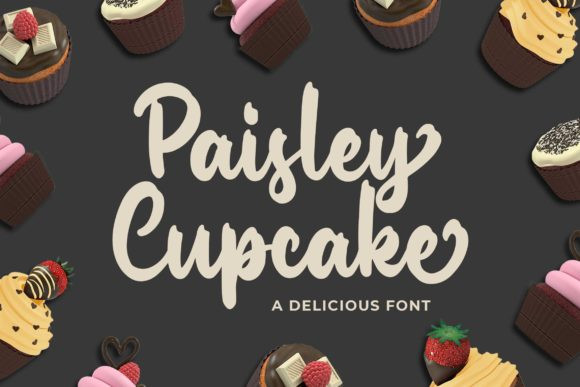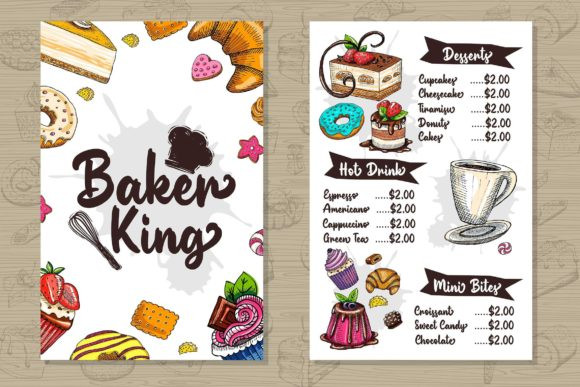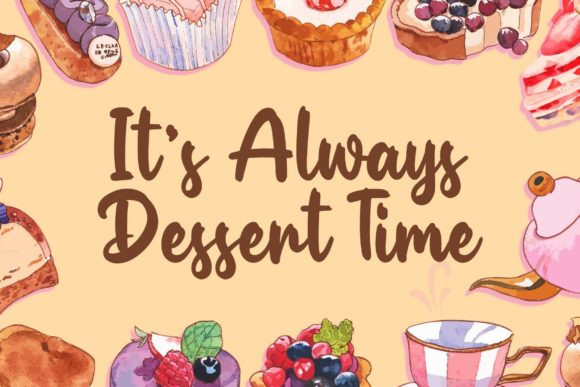
Paisley Cupkace Font
Paisley Cupkace embodies fun, quirkiness and authenticity. This enchanting handwritten font will turn any creative idea into a true standout.